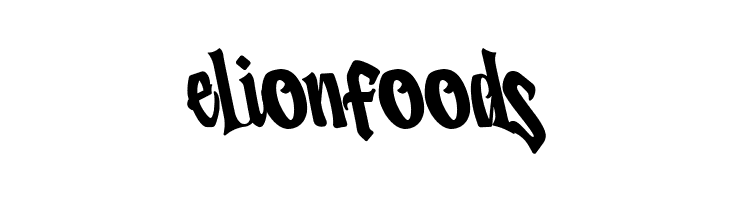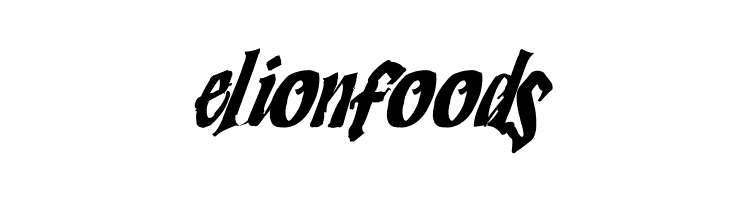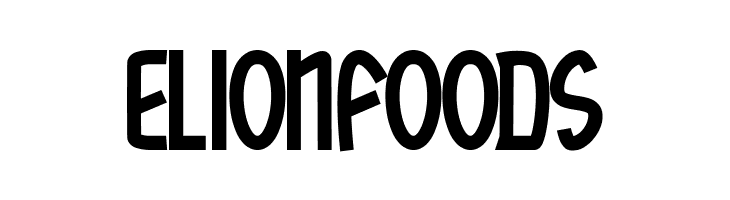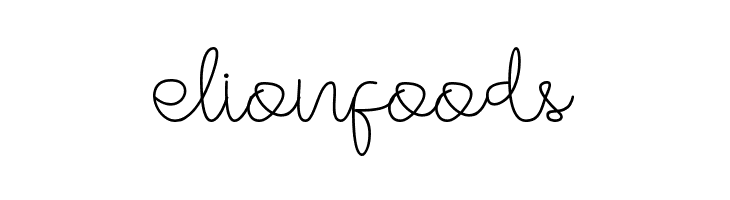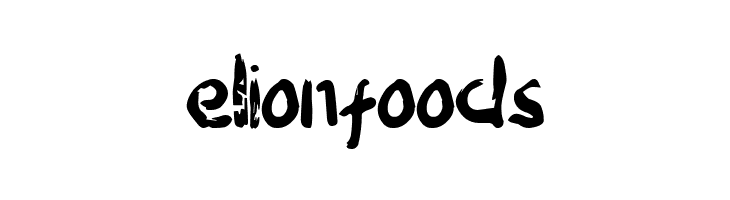
A bold, Gothic-inspired font with sharp, angular edges and a modern twist.
A bold, italic font with high contrast and dynamic, angular forms.
A bold, rough-edged font with a modern blackletter style.
A bold, rough, and italicized font with a dynamic and textured style.
A bold, tilted font with a dynamic and gothic-inspired style.
A bold, brush-style font with an expressive, artistic flair.
A playful script font with fluid, continuous strokes and a whimsical charm.
A bold, dynamic font with a retro flair and unique character shapes.
A playful, heart-themed decorative font with bold, rounded characters.